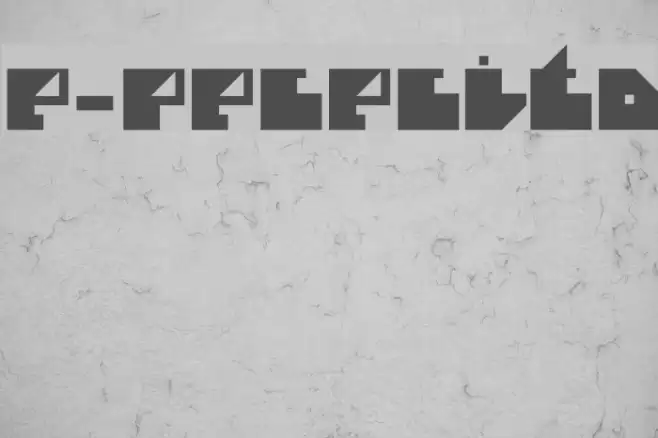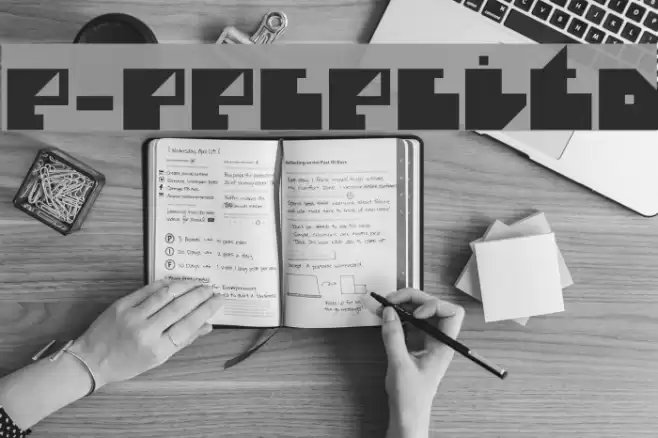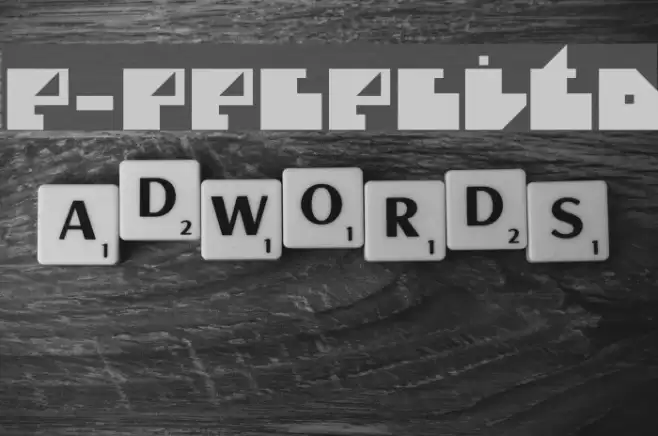
e-Pececito Font
e-Pececito Description
This font features a bold, geometric design with sharp angles and a blocky appearance. Each character is constructed with a series of straight lines and angular cuts, creating a modern and edgy look. The uppercase and lowercase letters maintain a consistent style, with a strong emphasis on symmetry and uniformity. The numbers and special characters follow the same geometric pattern, ensuring a cohesive visual theme throughout. The font's unique style makes it stand out, offering a striking visual impact that is both contemporary and artistic.
A bold, geometric font with sharp angles and a modern, edgy style from Uncategorized fonts.
- Proposed Projects: Ideal for modern branding, poster design, album covers, and digital art projects.